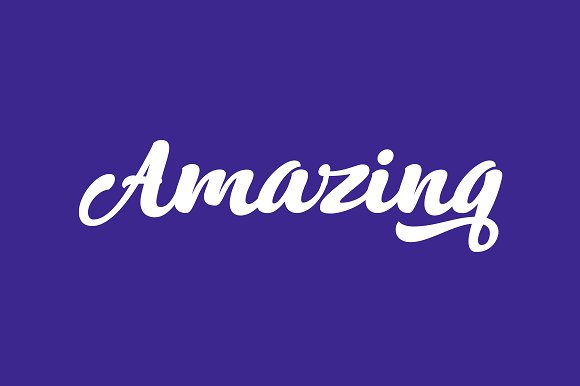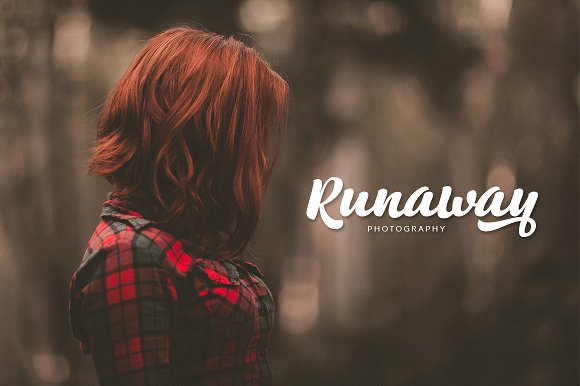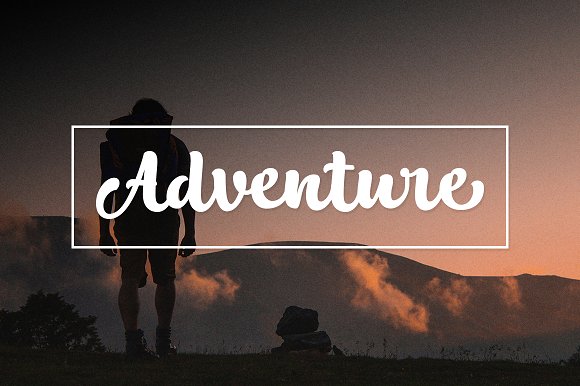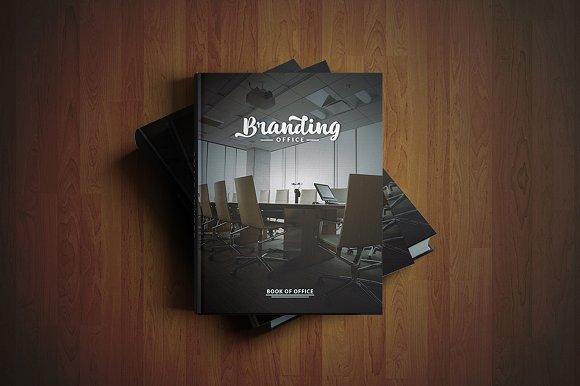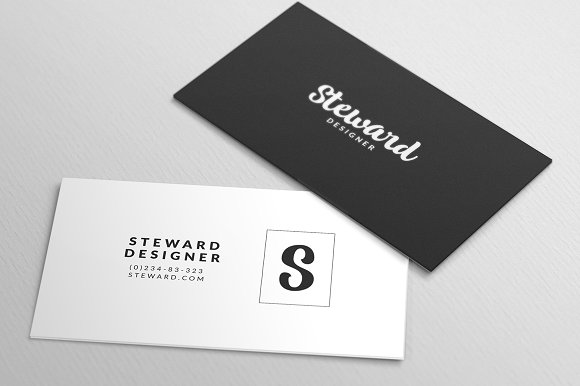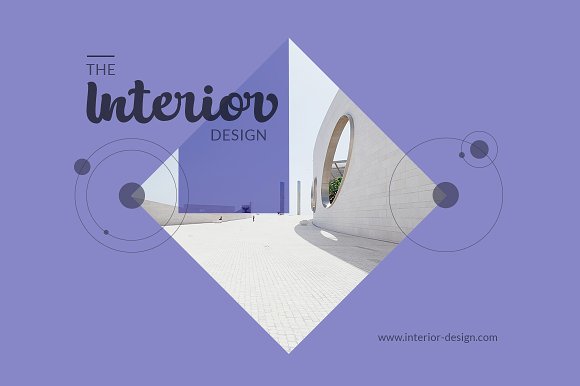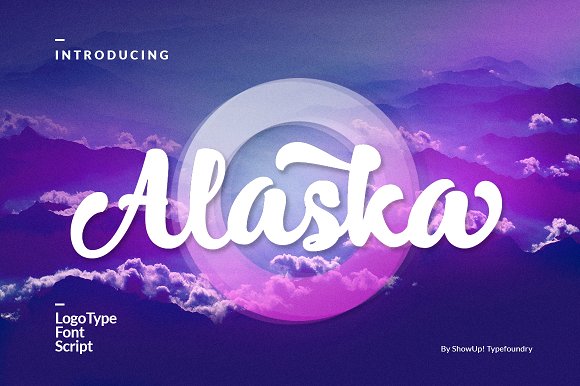
Alaska Typeface
Alaska Typeface included in uppercase, lowercase, numerals, punctuations and so many variations on each characters include opentype alternates, common ligatures and also additional swash to let you customise your designs. Perfect to use for Logotype, Letterhead, Poster, Apparel Design, Label and etc.